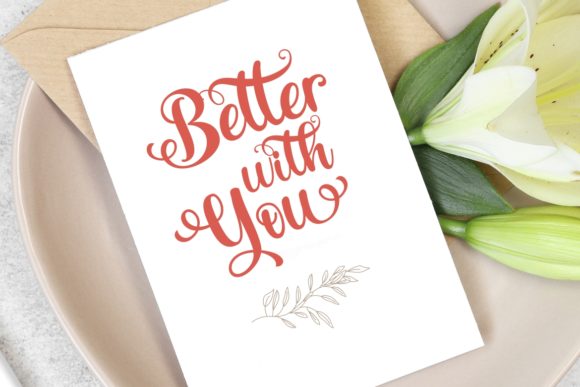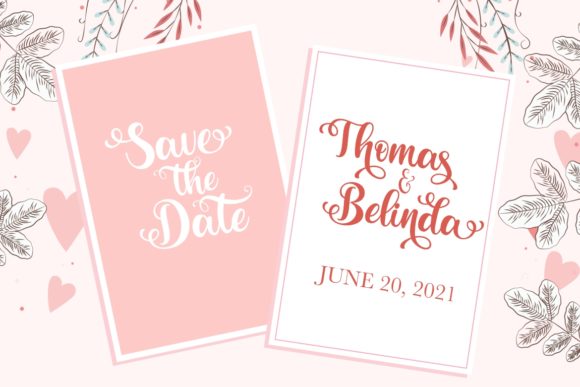
Valentina Font
db-ku.com - Script & Handwritten -- Valentina is an elegant and stylish handwritten font, carefully handcrafted to become a true favorite. It can be used for various purposes such as logos, wedding invitations, headings, t-shirts, letterhead, signage, labels, news, posters, badges and so much more.